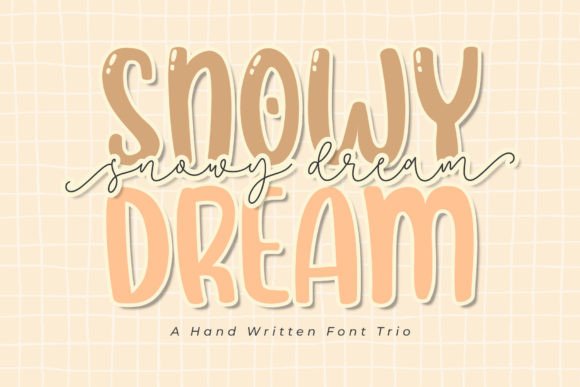
Presenting the Snowy Dream Trio Font, the epitome of charm, playfulness, and captivating aesthetics. This exquisite font family falls under the display category, making it a perfect choice for creating designs that demand attention and leave a lasting impression.
Picture this: Snowflakes twirling in a winter wonderland, delicate petals blooming in the spring breeze, or the heartfelt strokes of a handwritten note. Snowy Dream Trio Font captures these magical moments and transforms them into a typographic masterpiece.
With Snowy Dream, you hold the key to unlocking a world of creative possibilities. Whether you're a seasoned designer or just starting your journey, this font trio will elevate your designs to new heights.
Let's dive into the world of Snowy Dream Trio Font and discover the enchanting wonders it holds:
1. Snowy Dream Regular: The foundation of this font family, Snowy Dream Regular exudes a charming handwritten style, perfect for adding a personal touch to your designs. Its fluid strokes and playful curves bring warmth and authenticity to every letterform.
2. Snowy Dream Italic: Embrace the dynamic essence of Snowy Dream Italic, where the letters gracefully dance and flow, creating a sense of movement and energy. This font style adds an artistic flair to your designs, making them truly captivating.
3. Snowy Dream Q: Get ready to fall in love with the whimsical and delightful Snowy Dream Q. This font is the perfect choice for adding a touch of whimsy and cheer to your designs. Its playful curves and bouncy characters are guaranteed to bring smiles to faces.
Together, these three fonts form a harmonious trio, providing you with endless opportunities to express your creativity. From heartwarming invitations to cheerful branding materials, and from enchanting storybooks to playful packaging designs, Snowy Dream Trio Font knows no bounds.
This font is not just a collection of letters; it's an invitation to embark on an artistic journey, where imagination and inspiration collide. With Snowy Dream Trio Font, you'll discover a world of endless possibilities, where your designs will blossom into masterpieces.